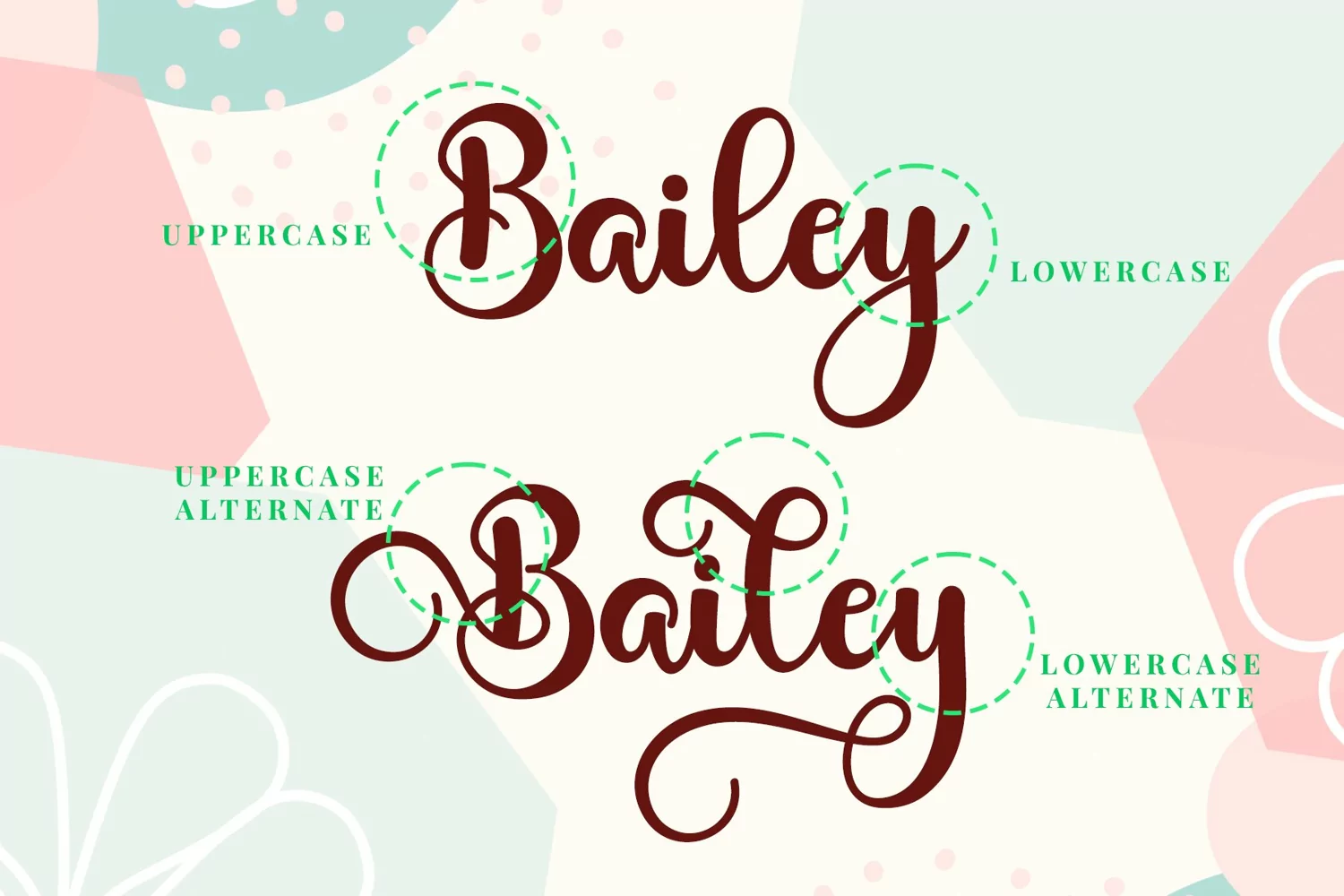
Lastgirl - Swirly Handwritten Script
Lastgirl is calligraphy cursive script with elegance, swirl, and modernity.
Lastgirl script has many swirly alternate glyphs to give you many options in designing.
Lastgirl is such a fabulous font for any elegant projects, such as wedding invitation, branding, logo, lettering, crafting, and so on.
+Multilingual glyphs.